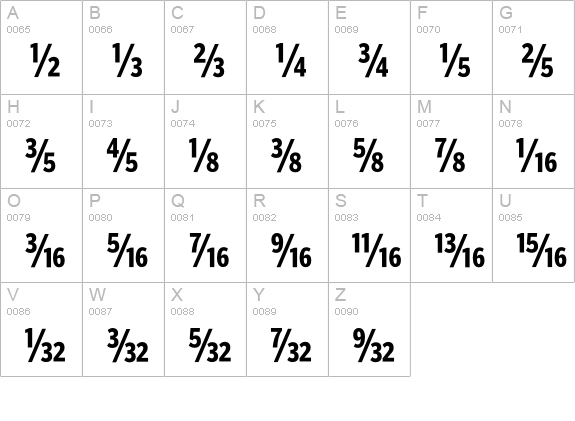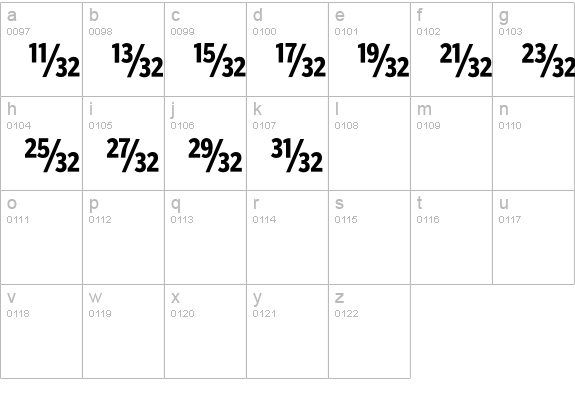
PoynterAgate-CompFracThree Font Details
PoynterAgate-CompFracThree is a sophisticated and versatile font that exudes elegance and professionalism. With its clean lines and classic design, this font is perfect for a wide range of projects, from branding to editorial design. Its unique blend of traditional and modern elements makes it a standout choice for any designer looking to make a bold statement. What sets PoynterAgate-CompFracThree apart is its attention to detail and precision, making it a top choice for those seeking a refined and polished look. Whether used for headlines, body text, or graphic elements, this font will elevate any design to new heights. The best part? PoynterAgate-CompFracThree is available for free download at FontsMarket.com, making it accessible to designers of all skill levels. Don't miss out on the opportunity to add this exceptional font to your collection today!